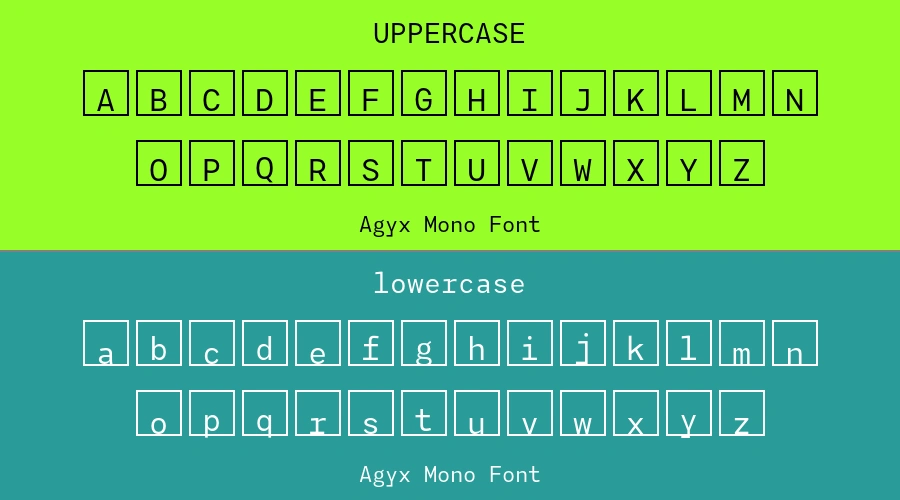
About Agyx Mono Font
Agyx Mono Font represents a sophisticated approach to type design, balancing geometric precision with visual impact. Perfect for exhibition design, this font family showcases impressive memorability and user trust throughout its character set. Designers appreciate its versatility and reliability.
Designers will appreciate nuanced touches including geometric construction and technical characters, adding sophistication to any project. These features become apparent in literary pages, where versatility matters most. The careful treatment of loop structure and consumer perception ensures optimal performance.